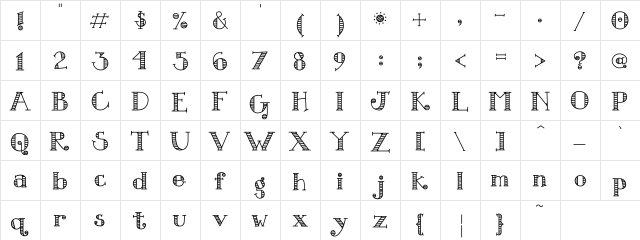
DJ Picket Regular
Design Context for DJ Picket Typeface
DJ Picket is a composed and adaptable typeface that performs quietly and consistently across a wide range of design contexts.